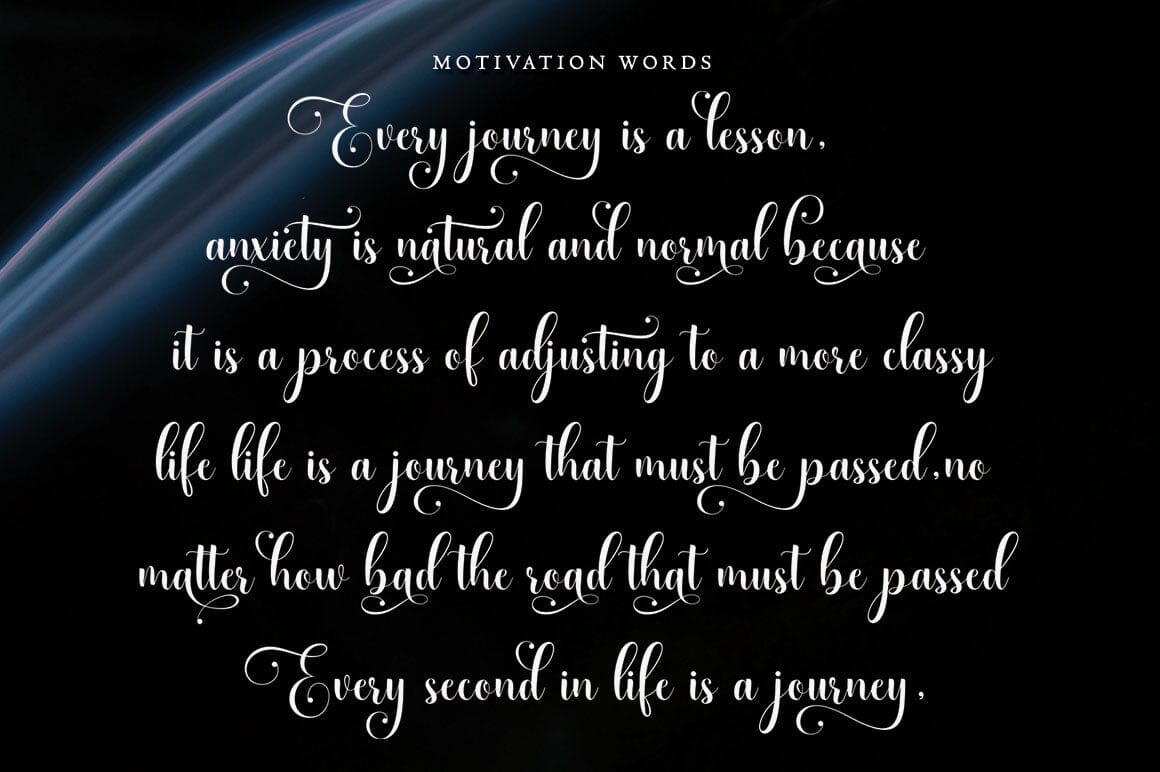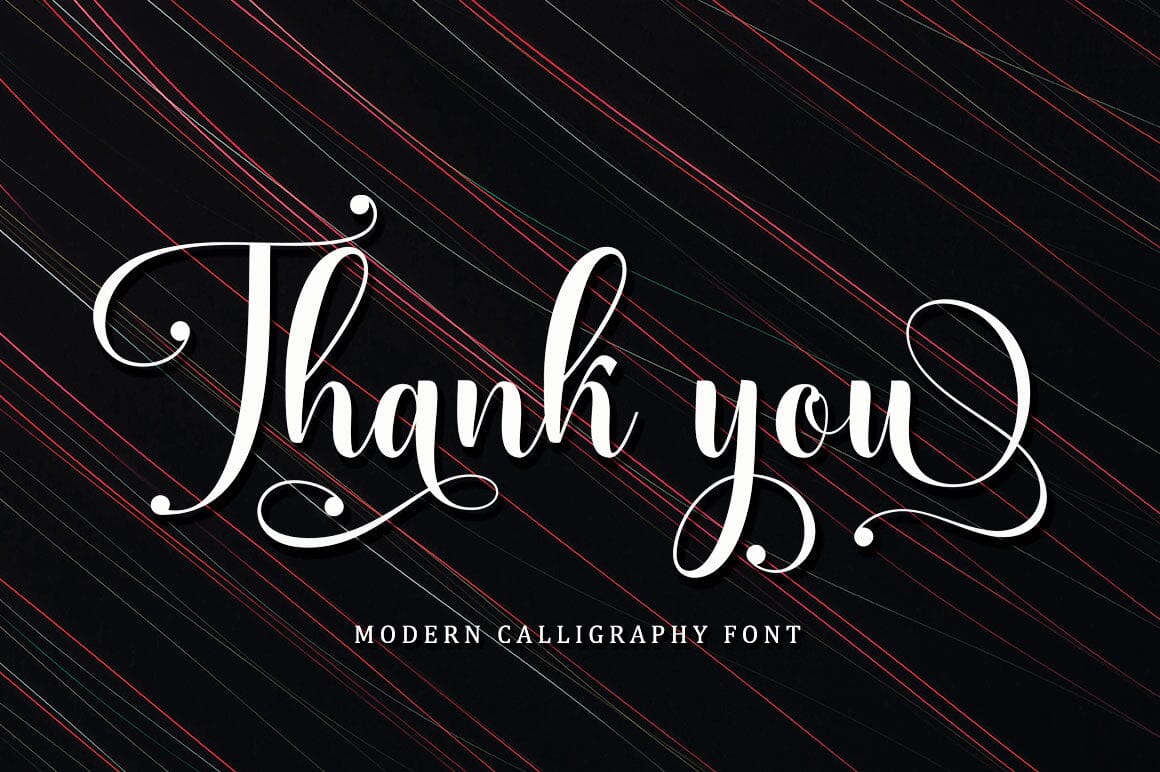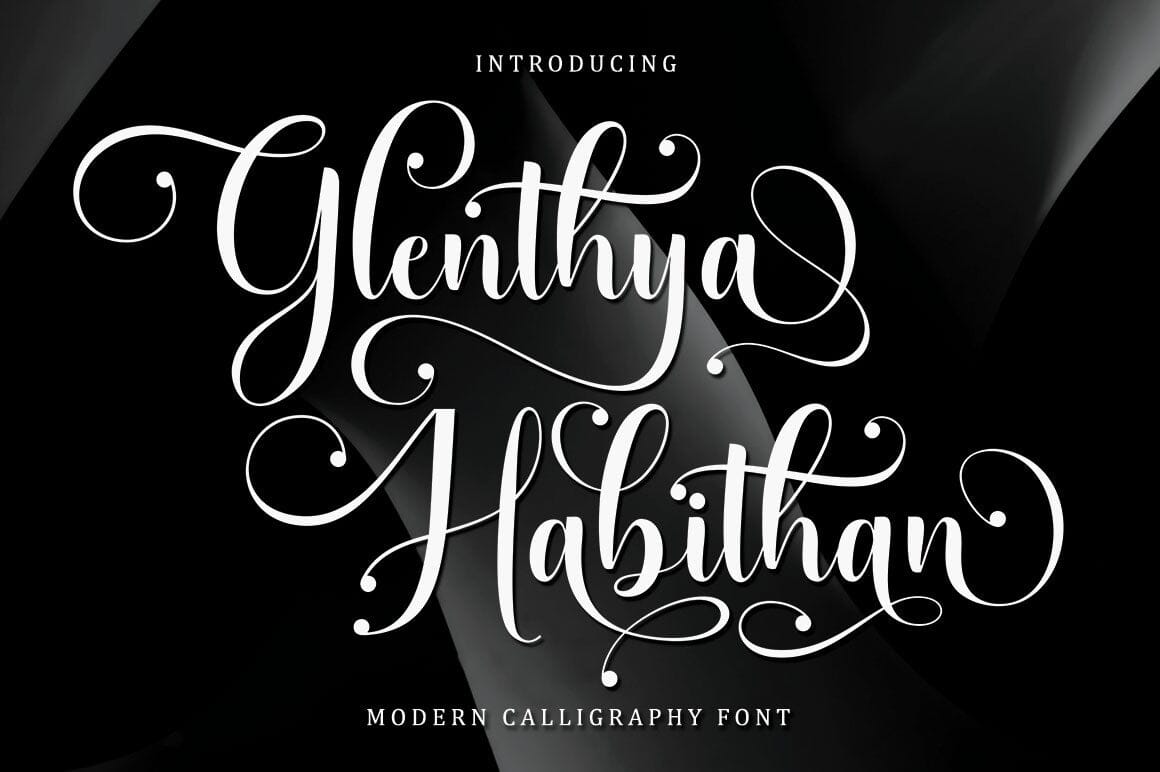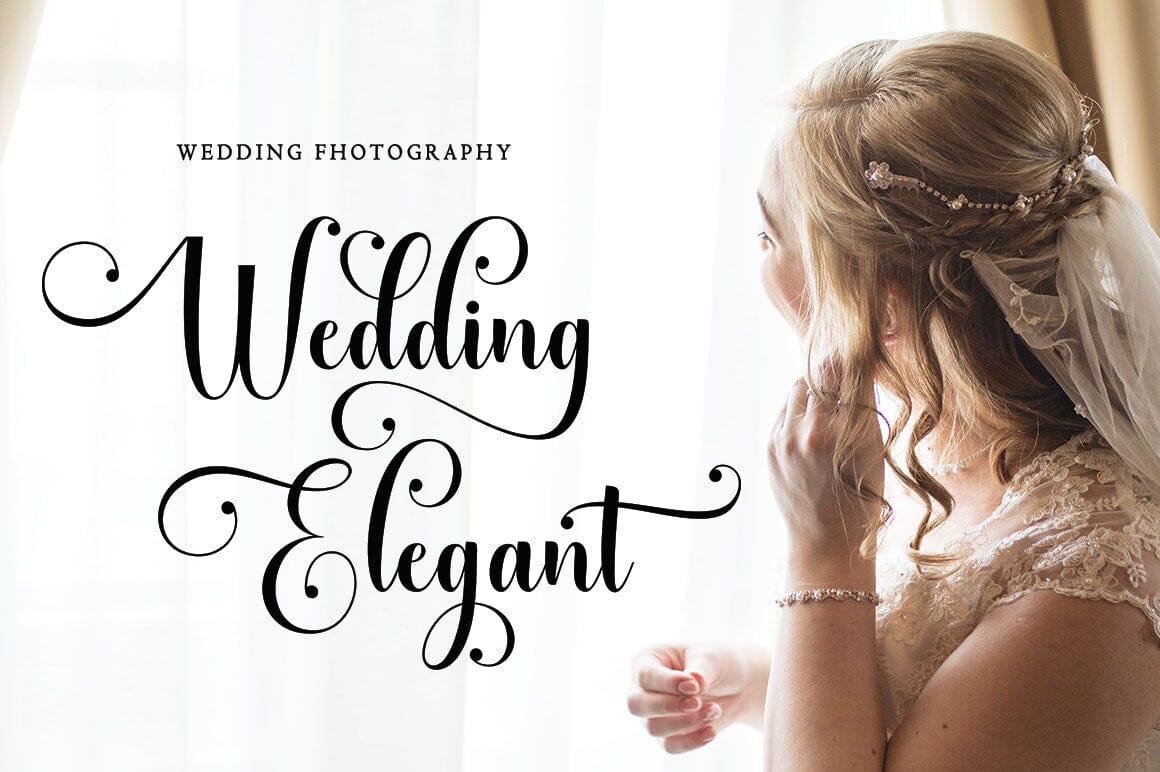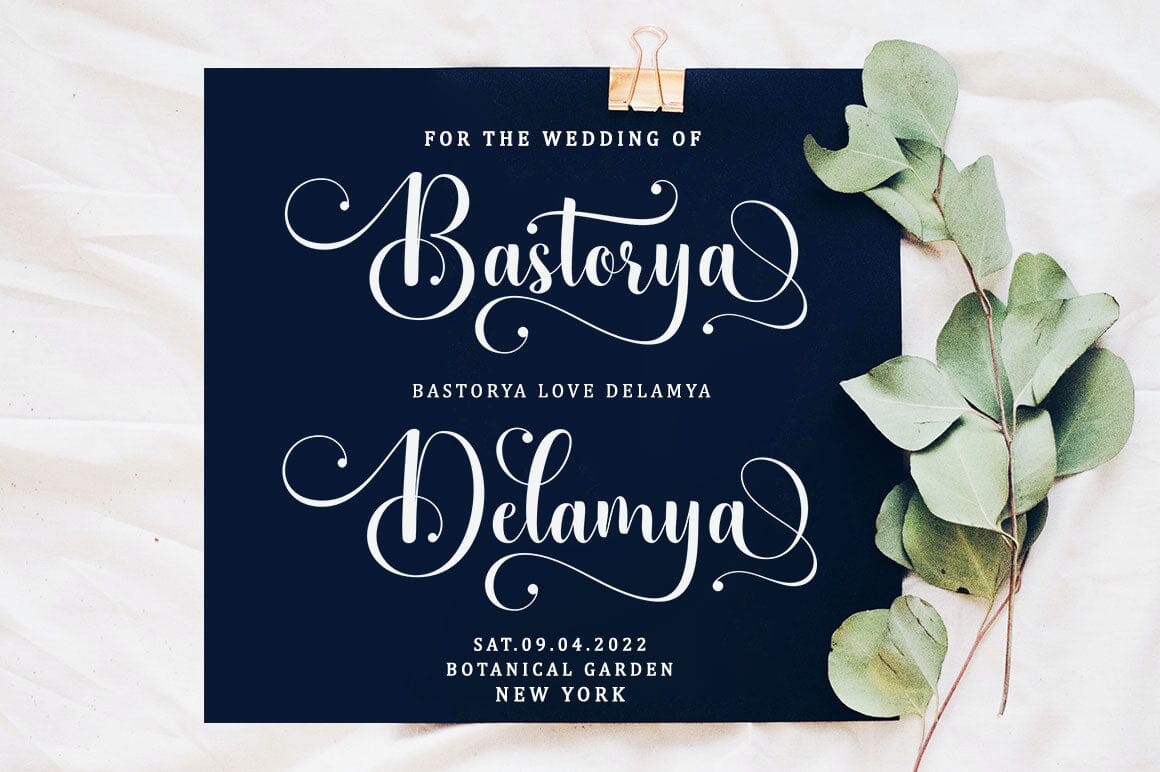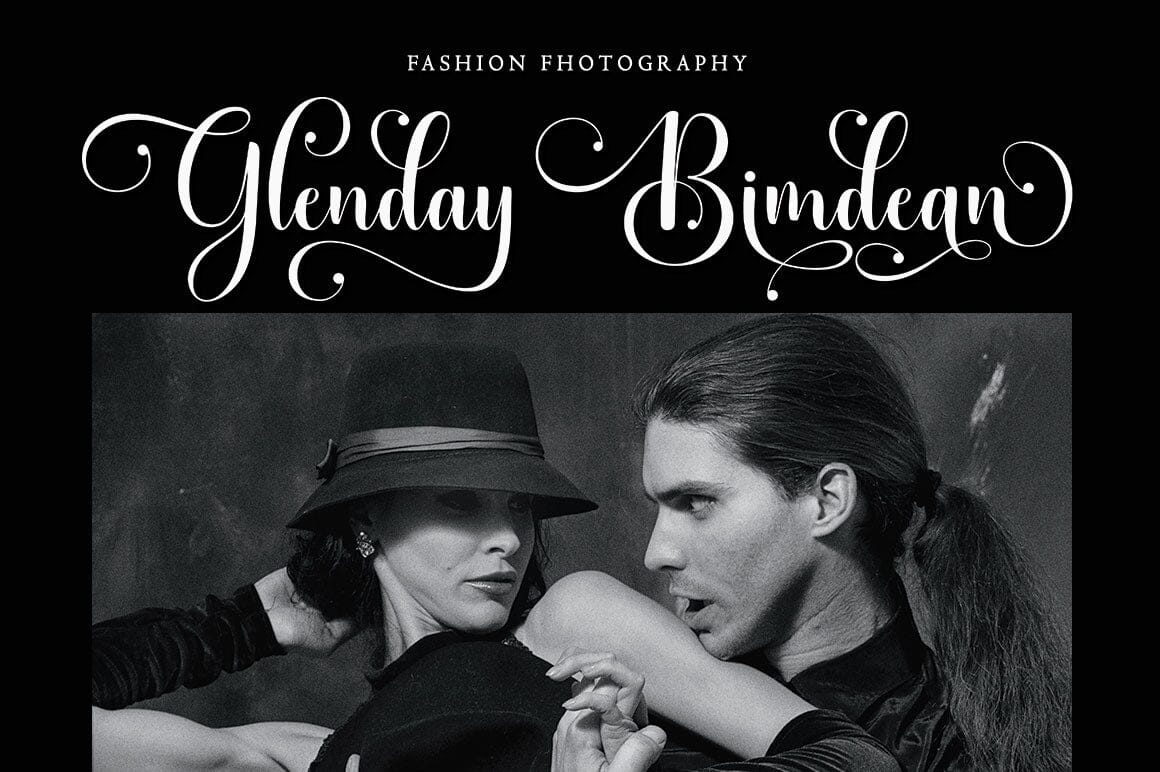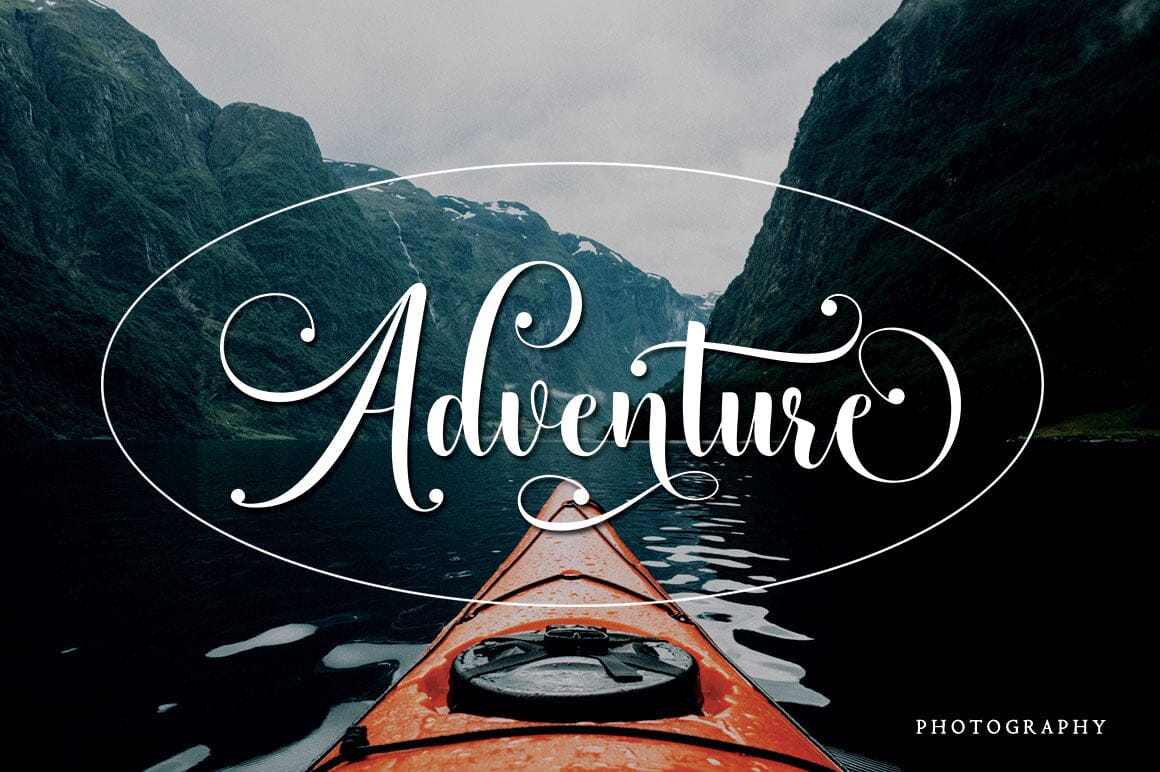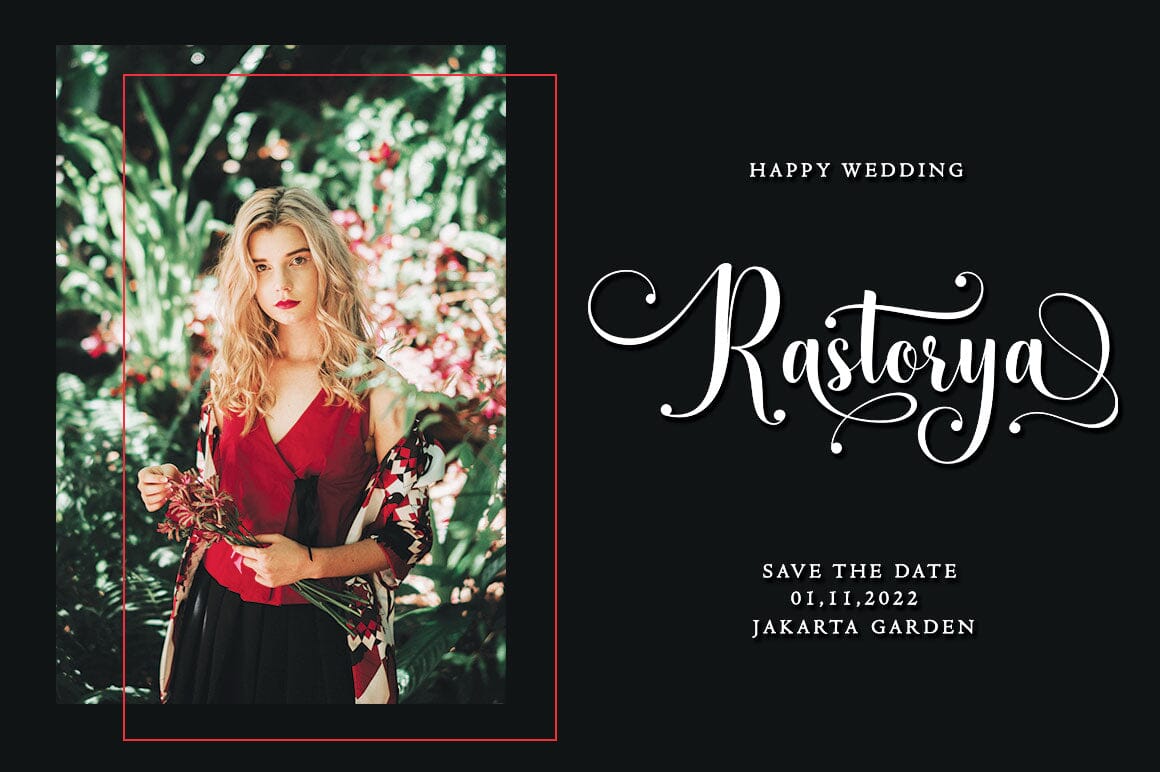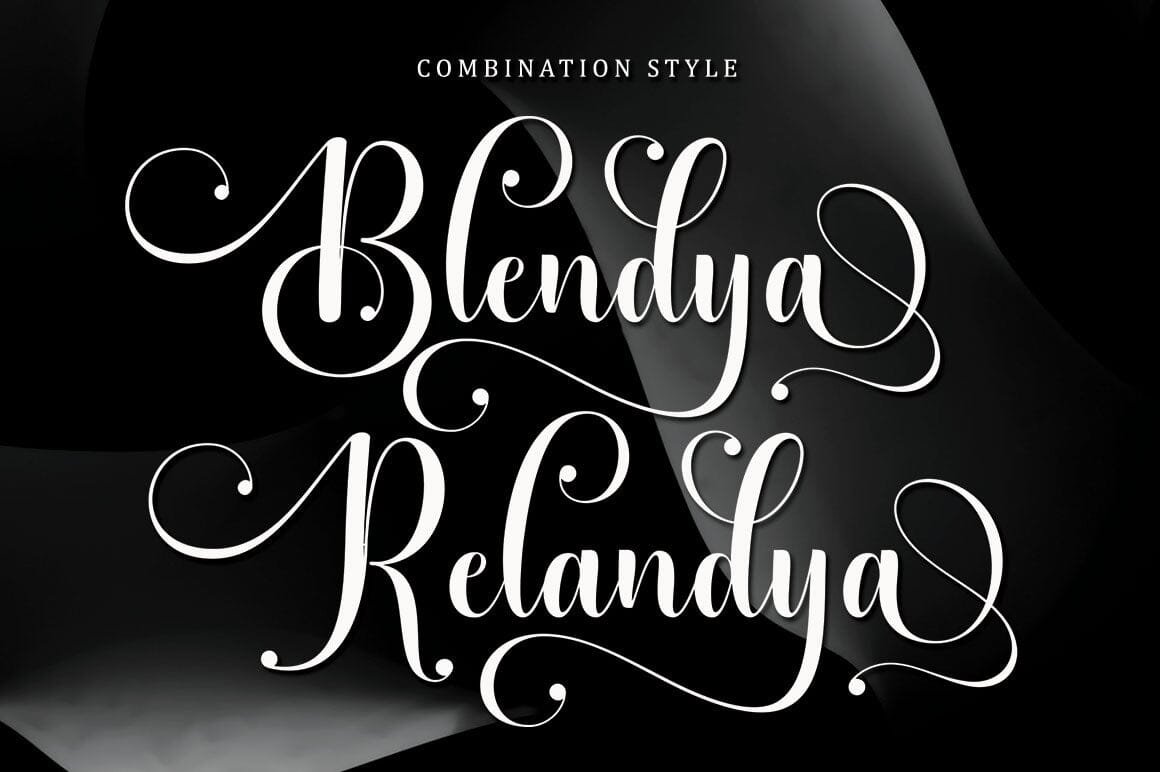
Glenthya Habithan
About Glenthya Habithan
Glenthya Habithan is a modern script font that features a classic and elegant touch. Glenthya Habithan is attractive because it is sleek, clean, feminine, sensual, glamorous, simple and very easy to read, thanks to its many beautiful letter connections. I also offer a number of decent stylistic alternatives for some of the letters. Classic style is very suitable to be applied in various formal forms such as invitations, labels, restaurant menus, logos, fashion, make up, stationery, novels, magazines, books, greeting/wedding cards, packaging, labels or all kinds of advertising purposes. . . . . . . . . Files include: OTF,TTF Contains full set: -Uppercase -Lowercase -Alternative -Style -Ligatures -Punctuation -Number -Multilingual support. need help or have questions let me know. I’m happy to help. Thanks & Congratulations on the Design!